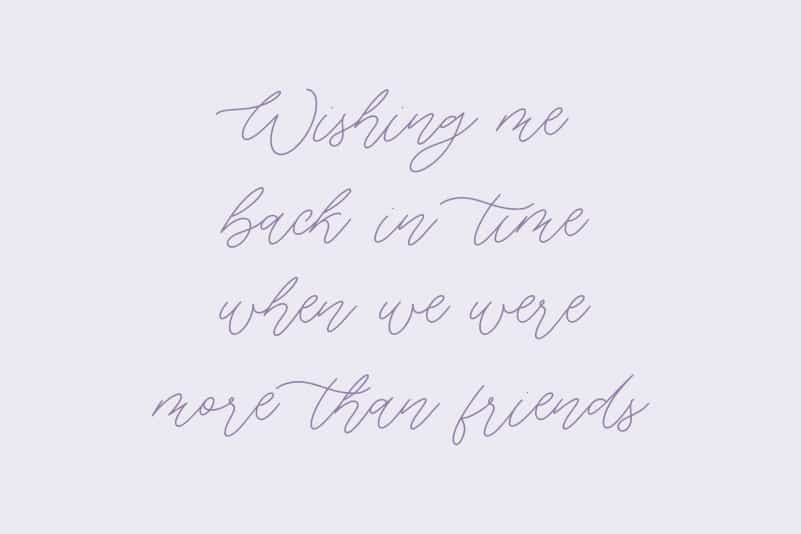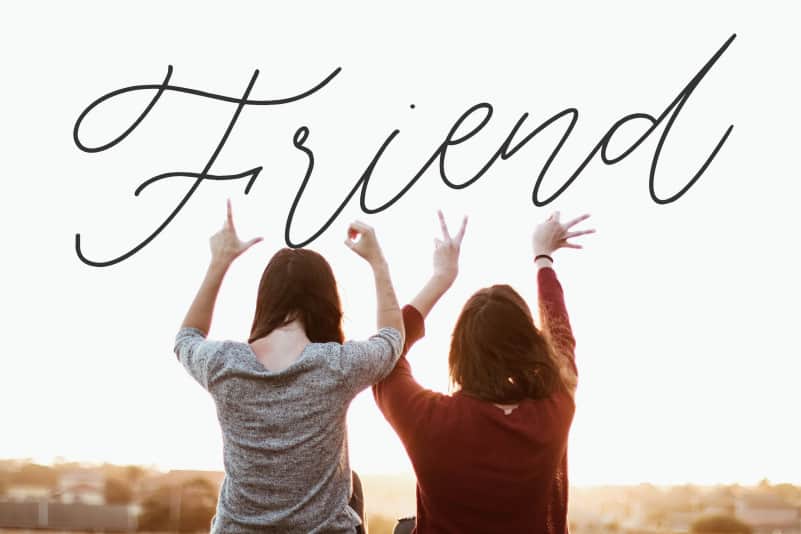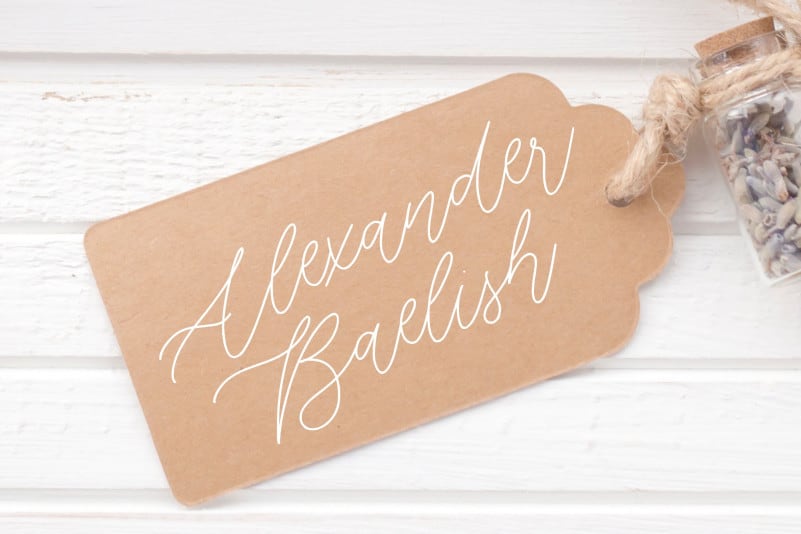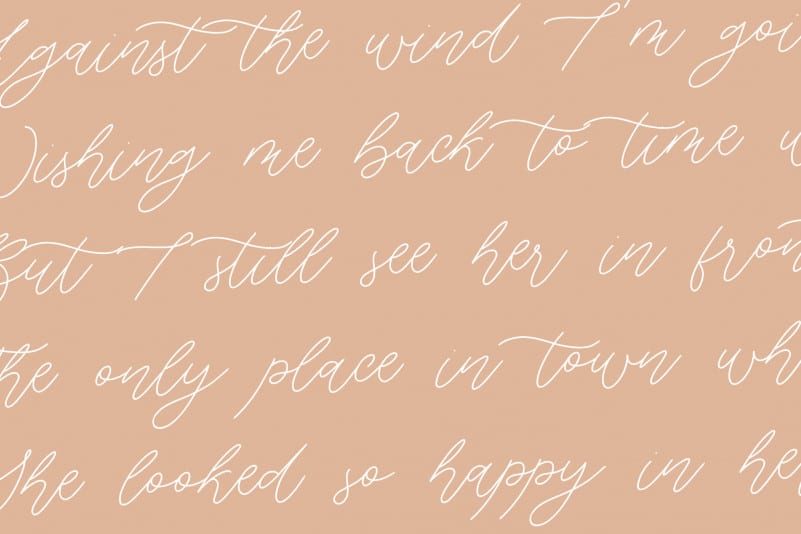
Fairy Lavender Monoline Handdraw Font
Proudly Present, Fairy Lavender Monoline Handdraw Font.
Fairy Lavender is a Monoline Handdraw Font.
Fairy Lavender is perfect for product packaging, branding project, megazine, social media, wedding, or just used to express words above the background.